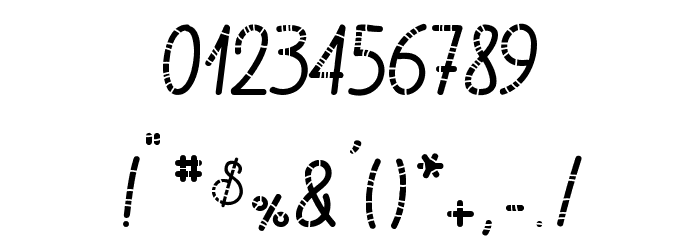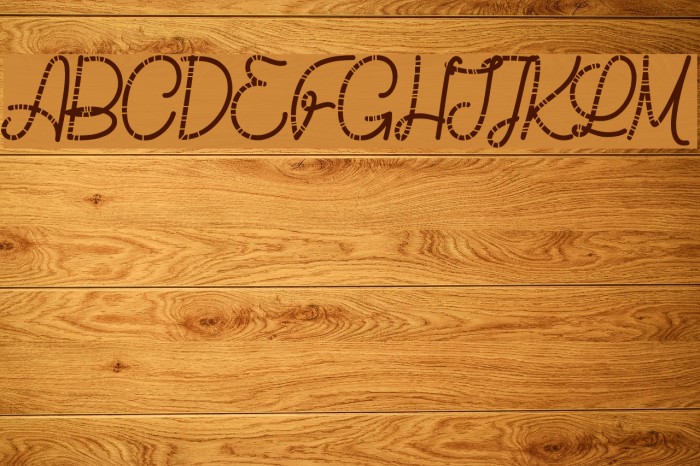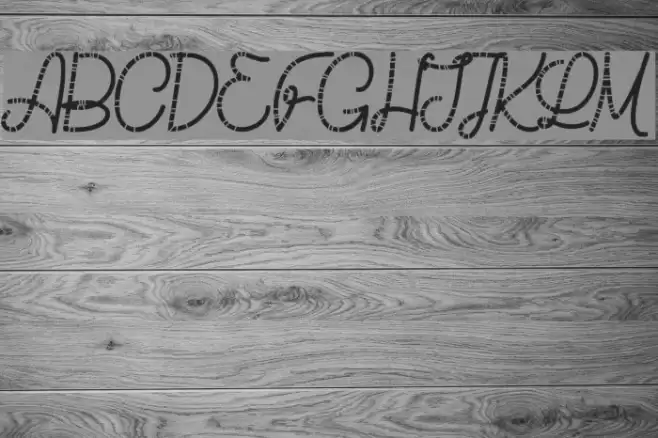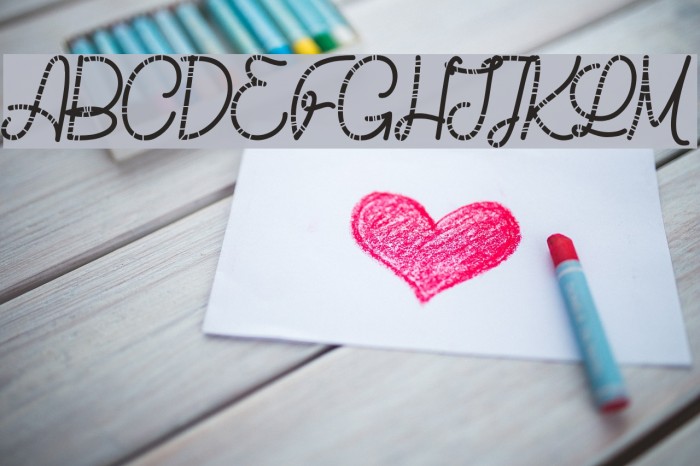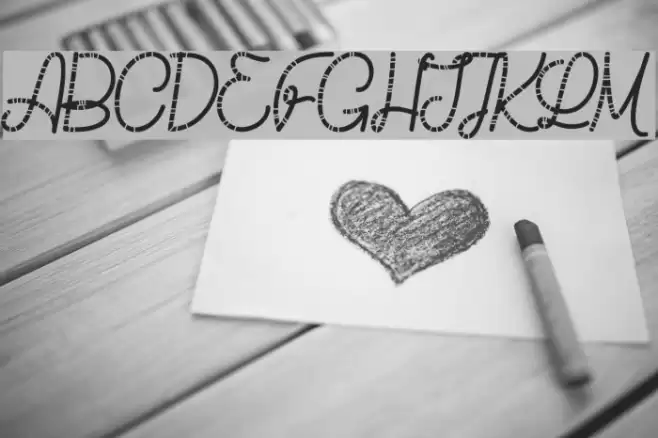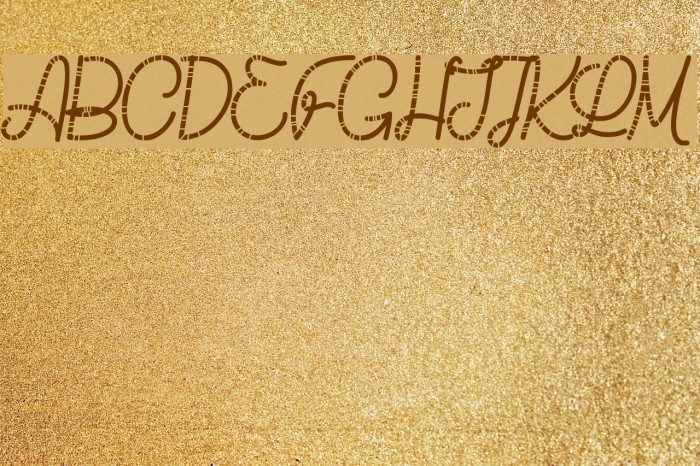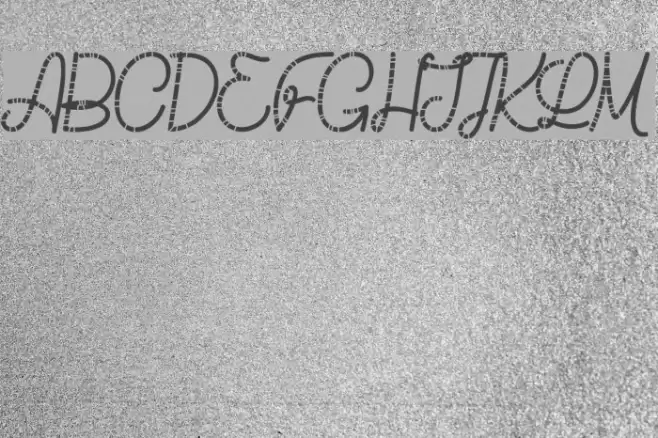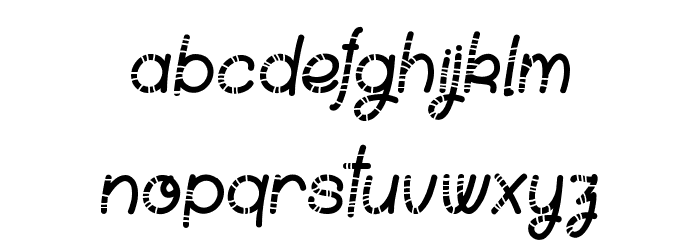
Chicken Socks Font
Chicken Socks Description
This font features a playful and decorative style with a unique pattern that resembles stitching or patchwork within each character. The letters are connected in a cursive manner, giving it a fluid and dynamic appearance. The uppercase and lowercase letters maintain a consistent design, with rounded edges and a whimsical flair. Numbers and special characters follow the same decorative theme, making the font suitable for creative and informal projects. The overall look is both fun and artistic, ideal for capturing attention in a lighthearted context.
| Proposed Projects | Ideal for children's book covers, playful invitations, craft projects, and whimsical branding. |